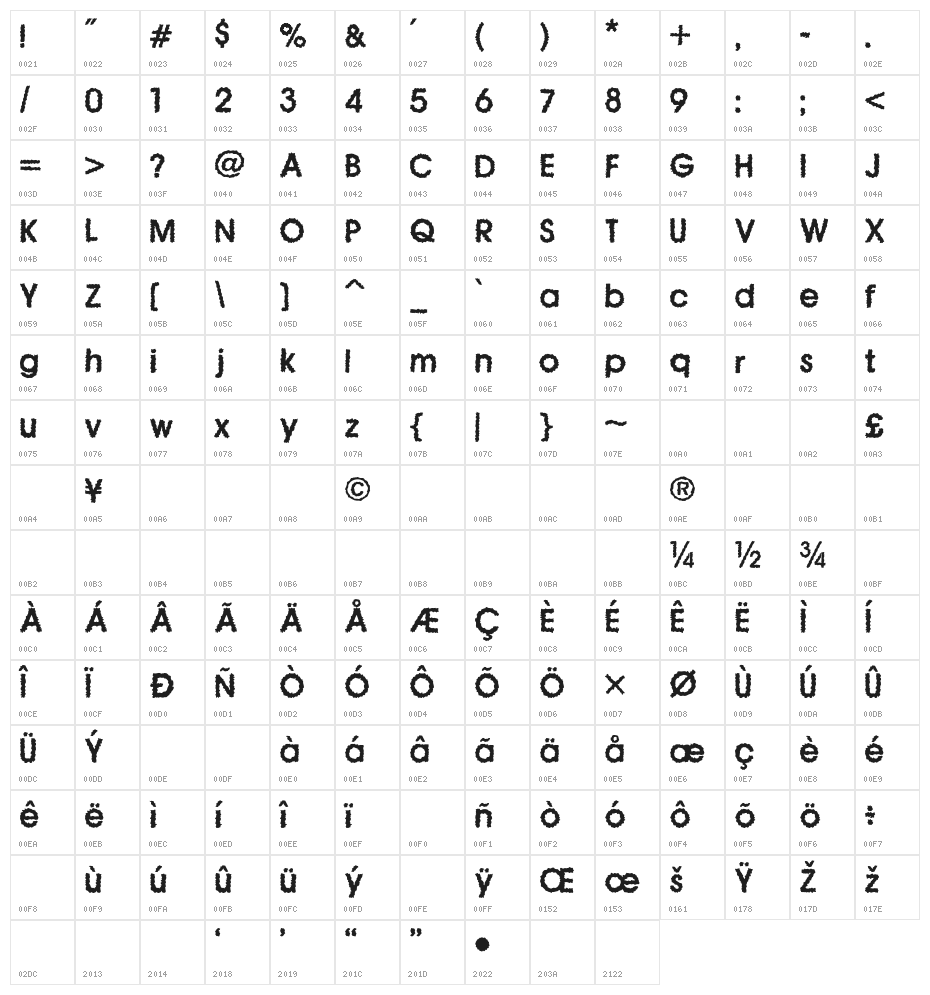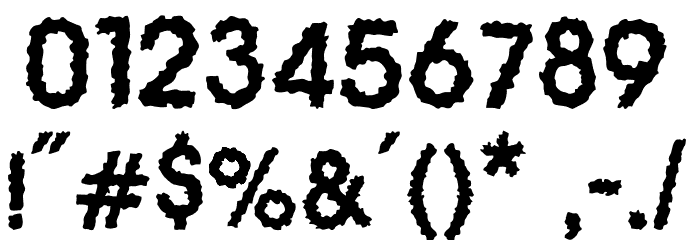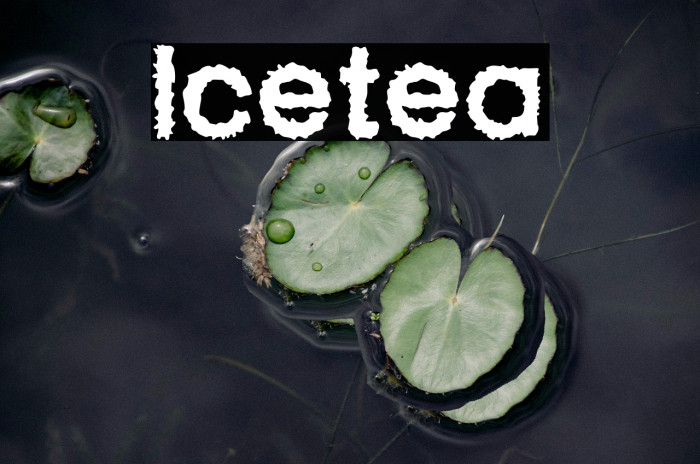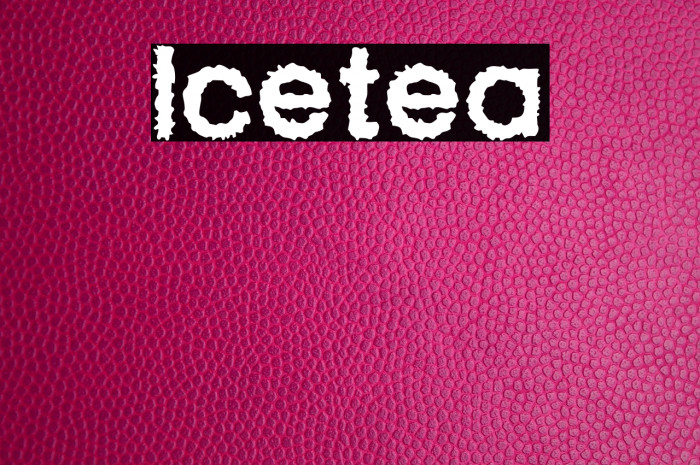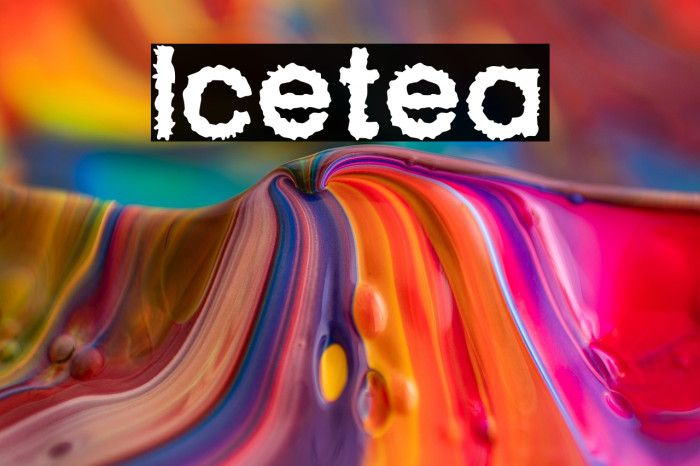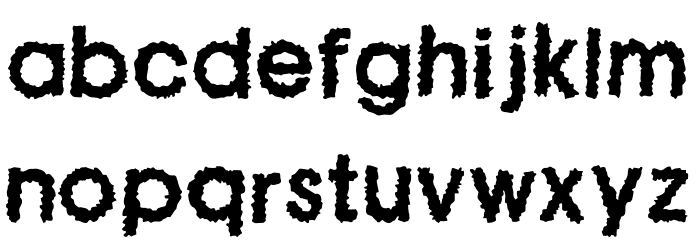
Icetea Font
Icetea Description
This font features a playful and textured design, with each character appearing as if it is crafted from a series of small, irregular shapes or brush strokes. The letters have a bold presence, with a slightly uneven and organic feel that adds a sense of movement and energy. The uppercase and lowercase letters maintain a consistent style, while the numerals and special characters complement the overall aesthetic. This font's unique texture makes it stand out, offering a creative and artistic vibe that is both eye-catching and memorable.
| Proposed Projects | Ideal for creative projects such as posters, album covers, children's books, and branding that requires a fun and artistic touch. |